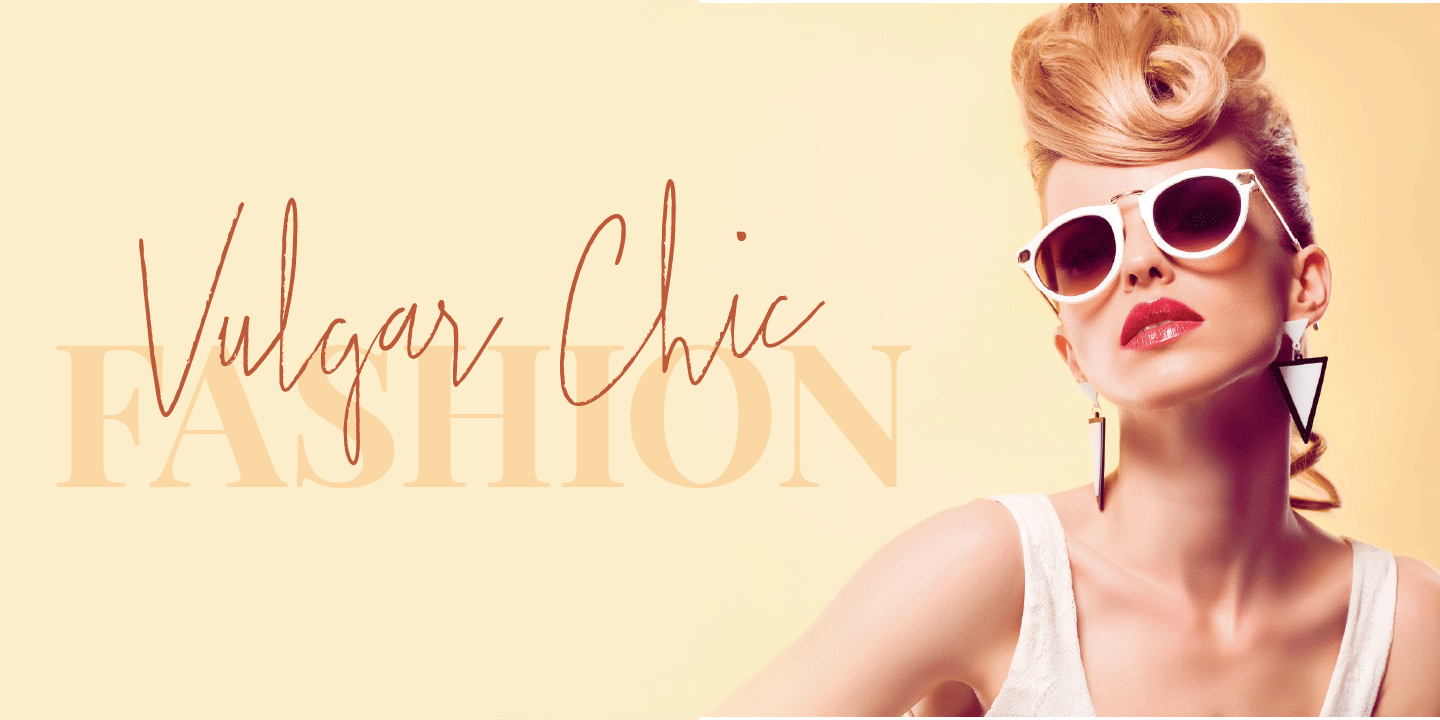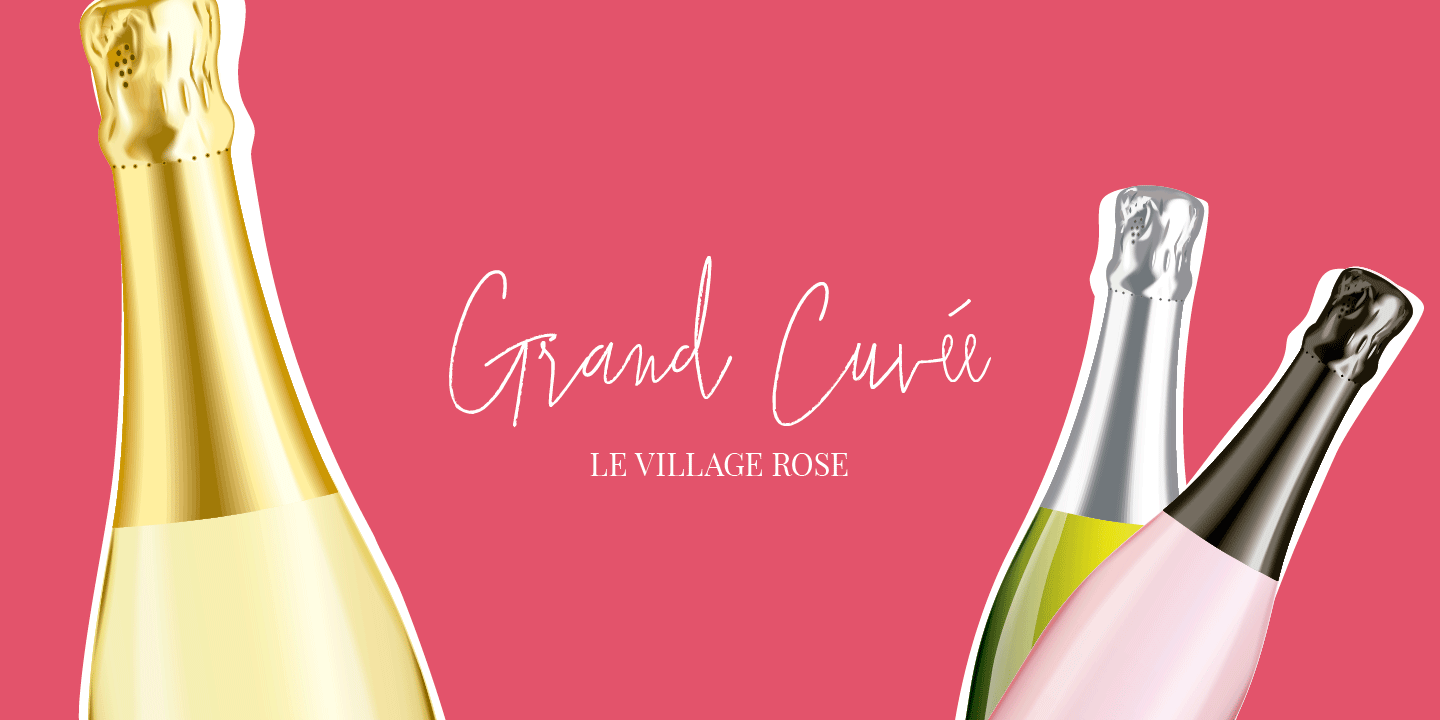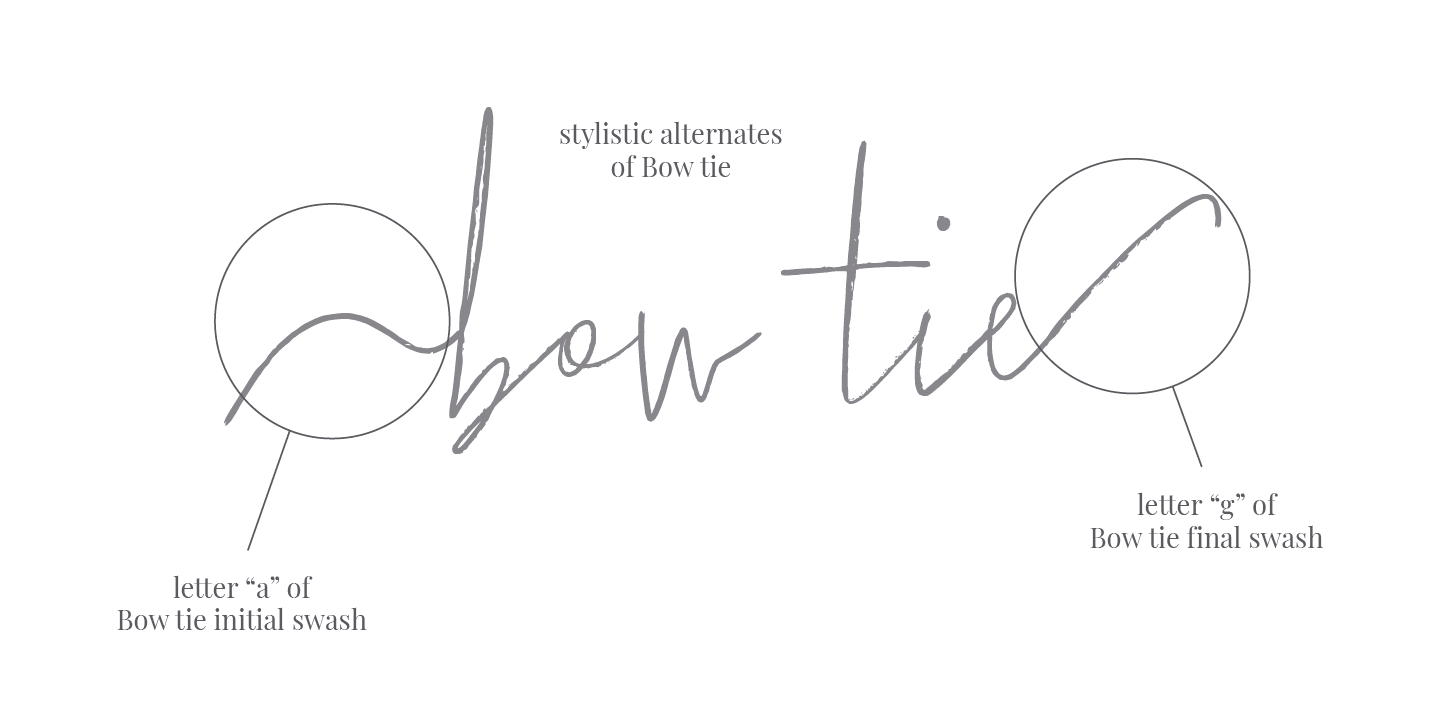
Bow Tie, a slight textured, organic and elegant signature. This modern, stylish but legible script is handy for logo, poster, headlines, invitations, cards and all display needs. The OpenType Features are: stylistic alternates that cover all latin language…